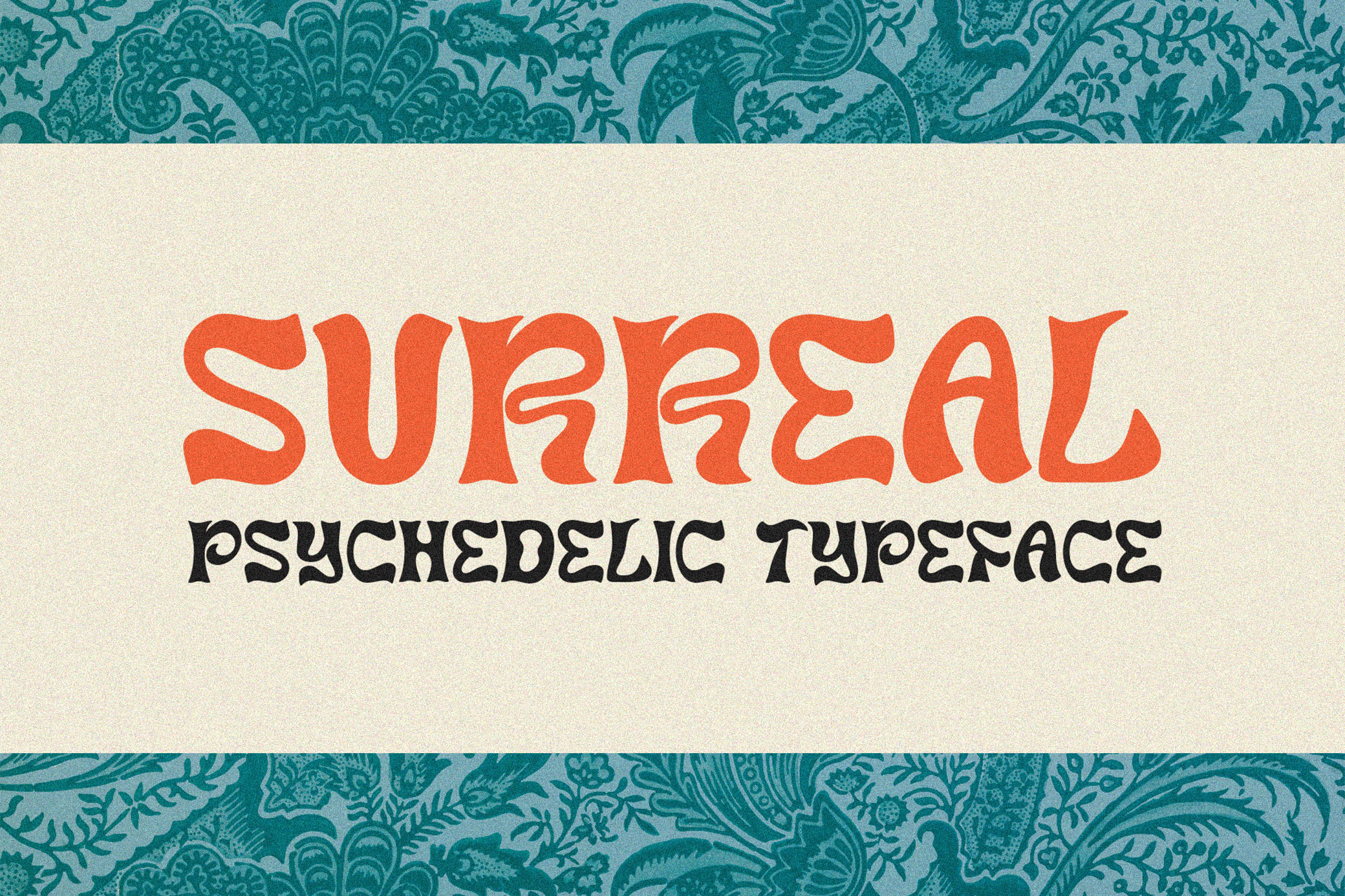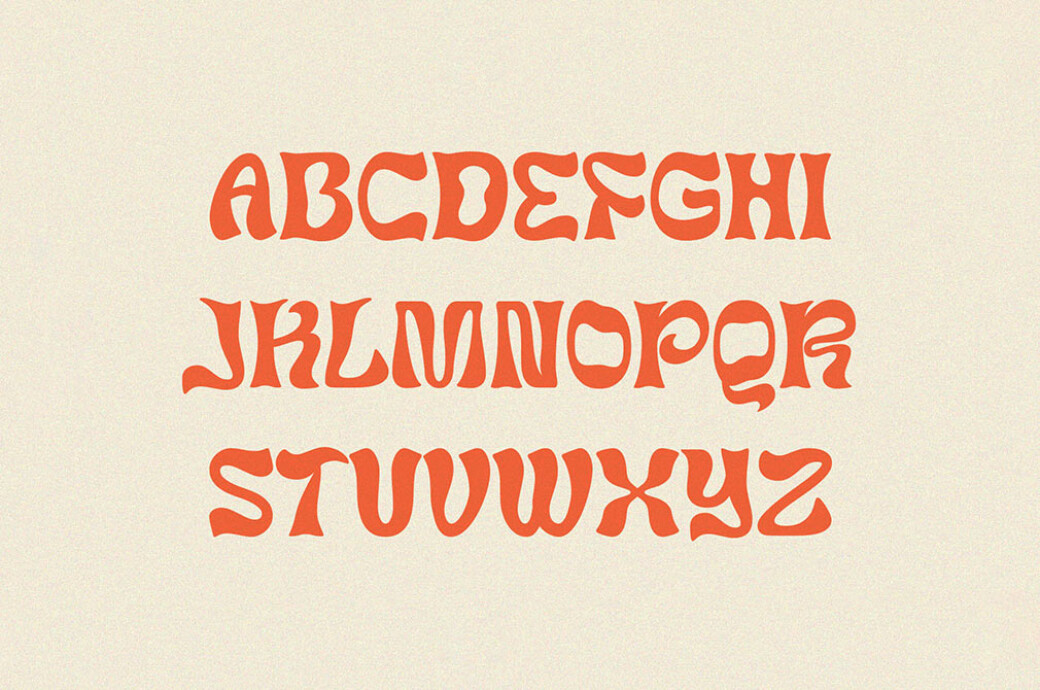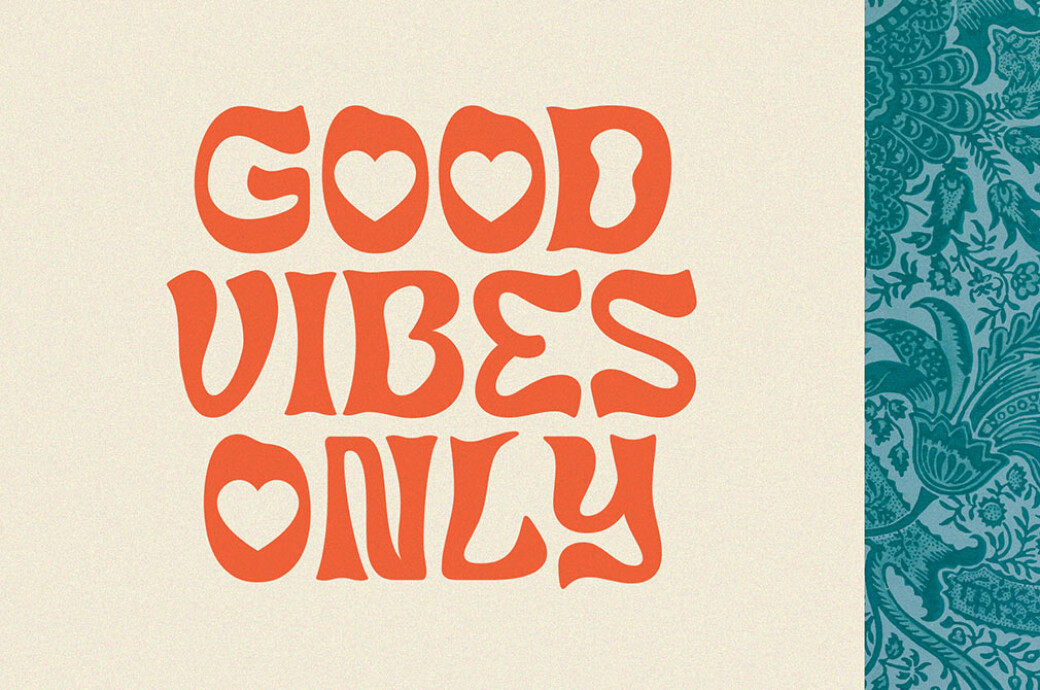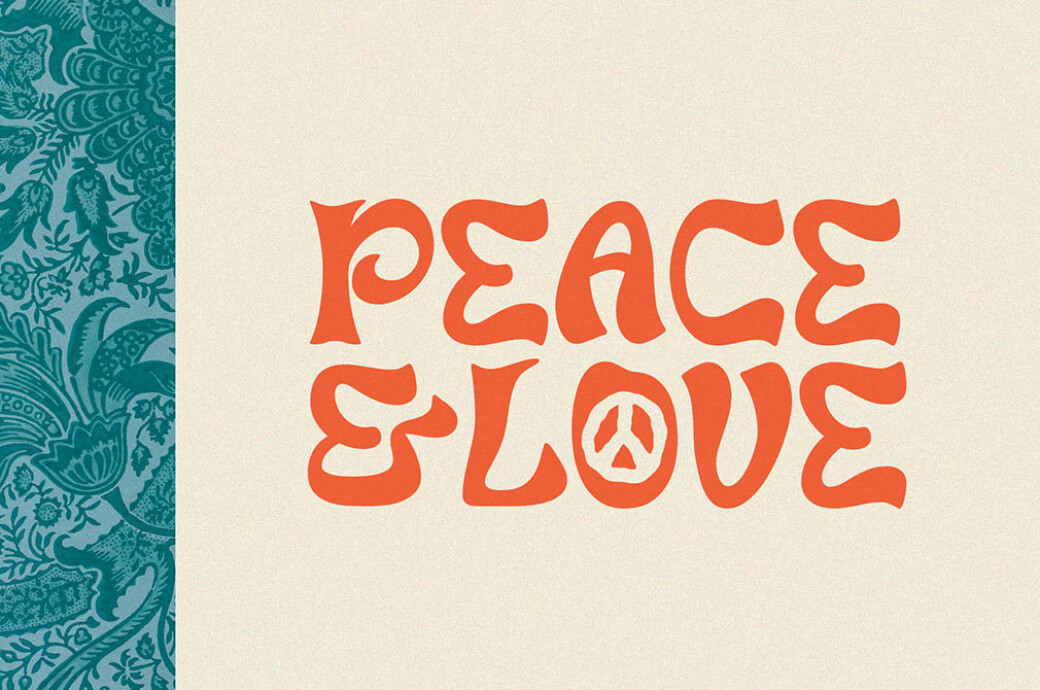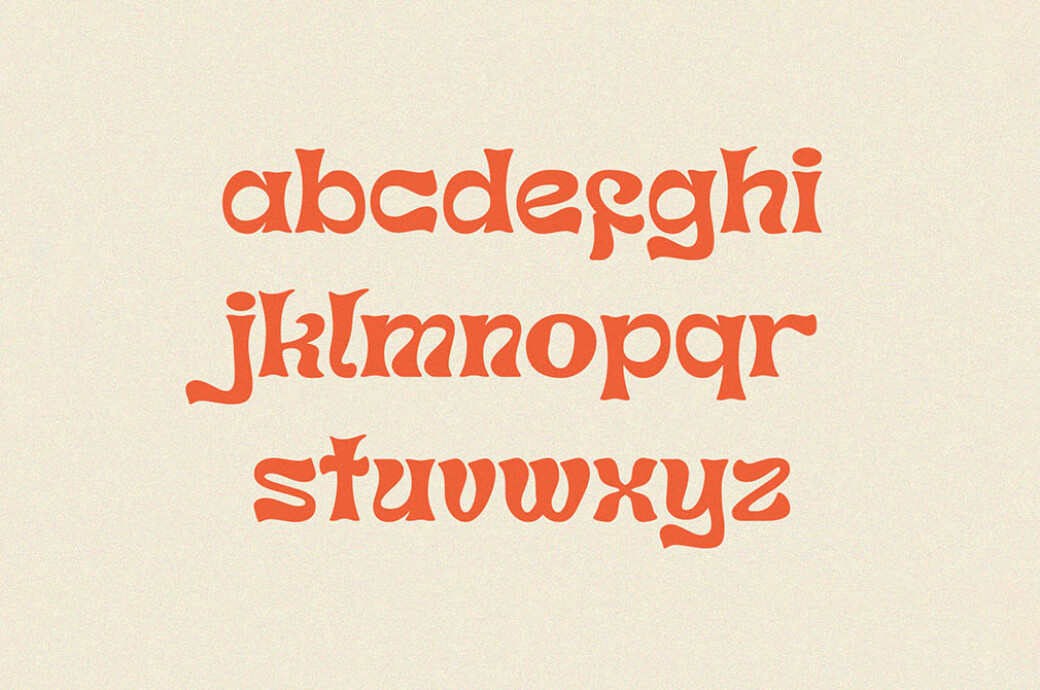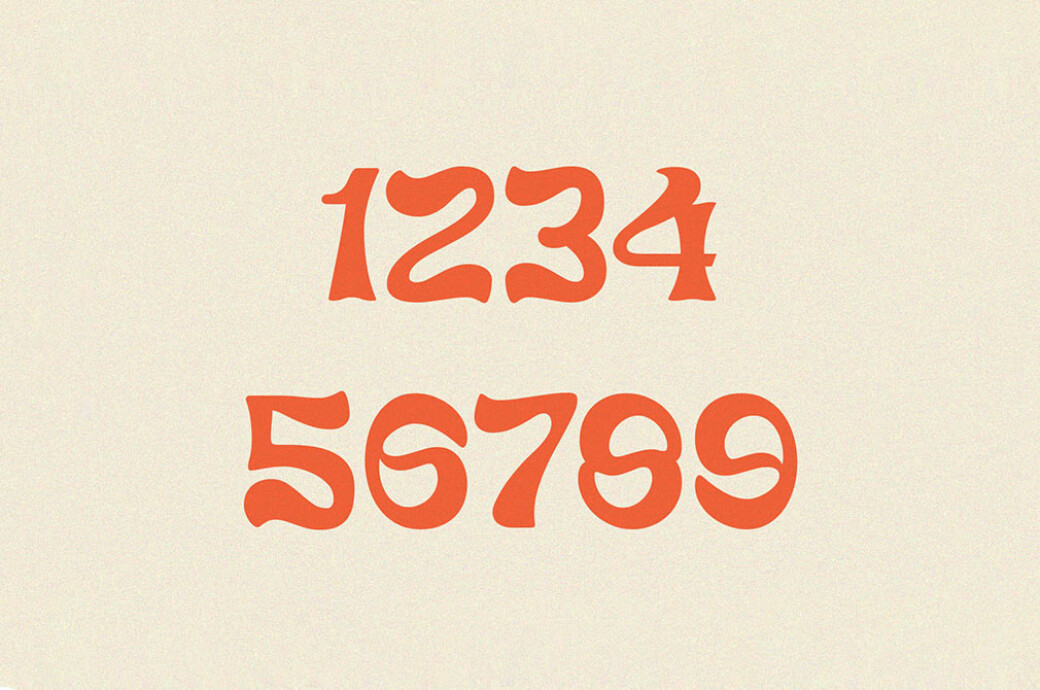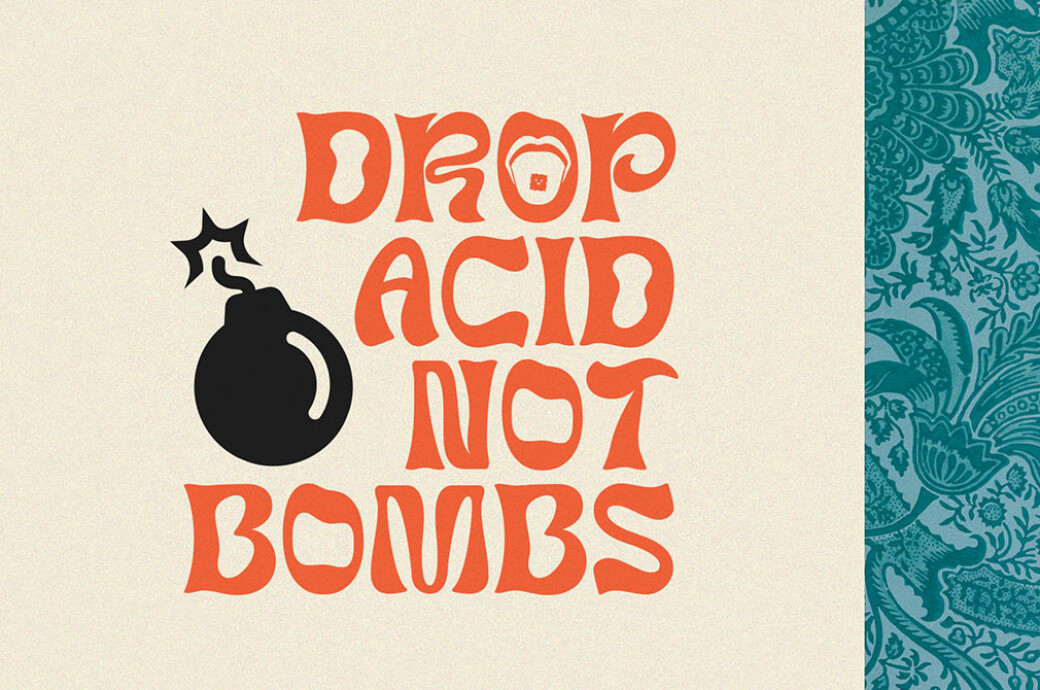
Surreal Psychedelic Typeface
If you’re looking to inject the right dose of mojo into your retro designs, then this free display font is for you. Each quirky letter unveils its potential in various colors & font pairings you must try!Surreal is a hand-drawn psychedelic display font perfect for groovy posters, experimental artwork, and rad design projects. It was inspired by the psychedelic movement of the mid-’60s. Since this one-of-a-kind typeface is not seen every day, your design projects are bound to grab the reader’s attention. Surreal includes uppercase, lower case, numbers, and punctuation. OTF and TTF font versions come with this download as well.